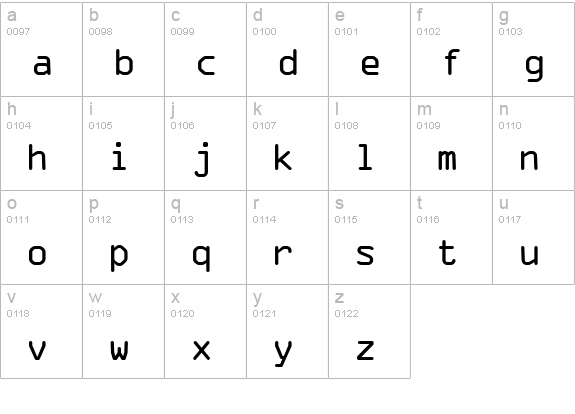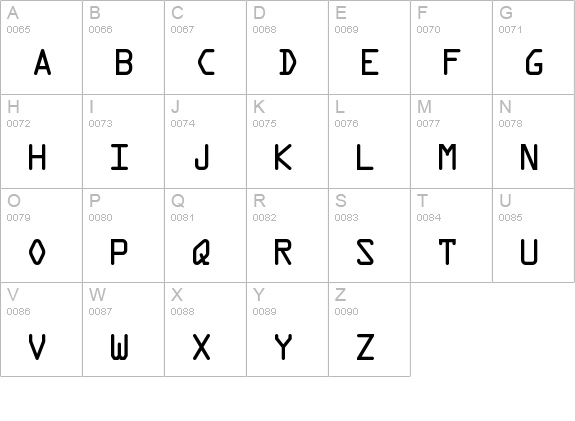
OCR A Extended is a distinctive, extended-width variant in the OCR typeface family \xE2\x80\x94 well suited to design and typography projects.
OCR A Extended is a modern and versatile monospaced font that is perfect for various design projects. Its clean lines and distinct shapes make it easily readable, especially in printed materials. This font is ideal for use in documents, reports, labels, and any other application where clarity is essential. The extended version provides additional character spacing, making it suitable for applications that require longer text blocks. Best of all, OCR A Extended is available for free download at FontsMarket.com. This means you can easily access this high-quality font to enhance your designs without any cost. Whether you are a professional designer or just looking to spruce up your personal projects, OCR A Extended is a fantastic choice that offers both style and functionality. Download it now and elevate your designs with this versatile and modern font.